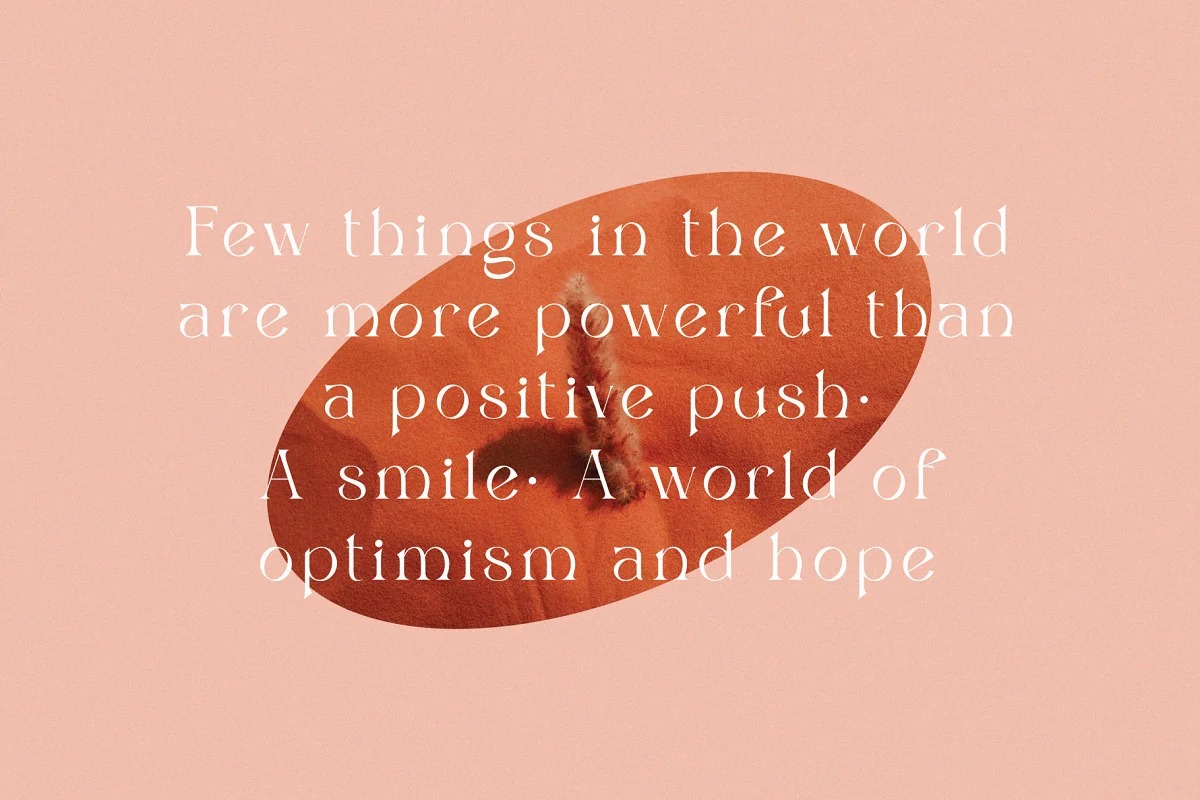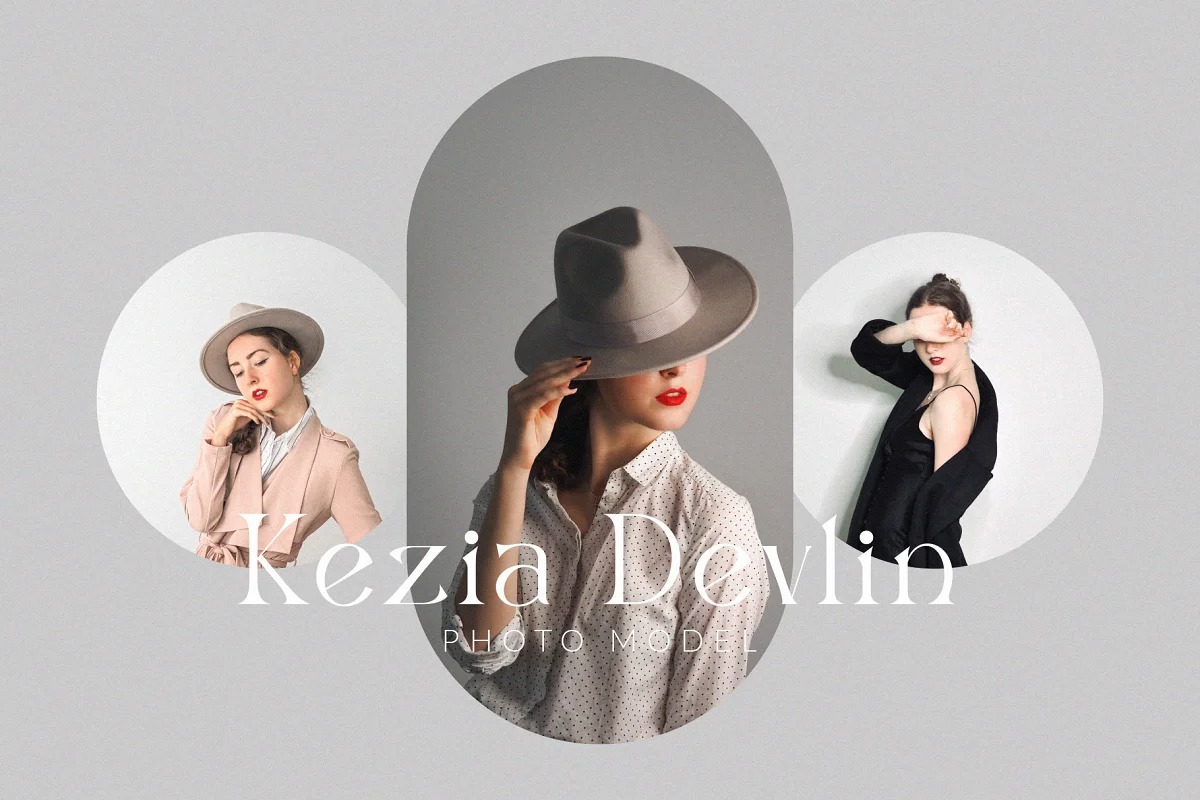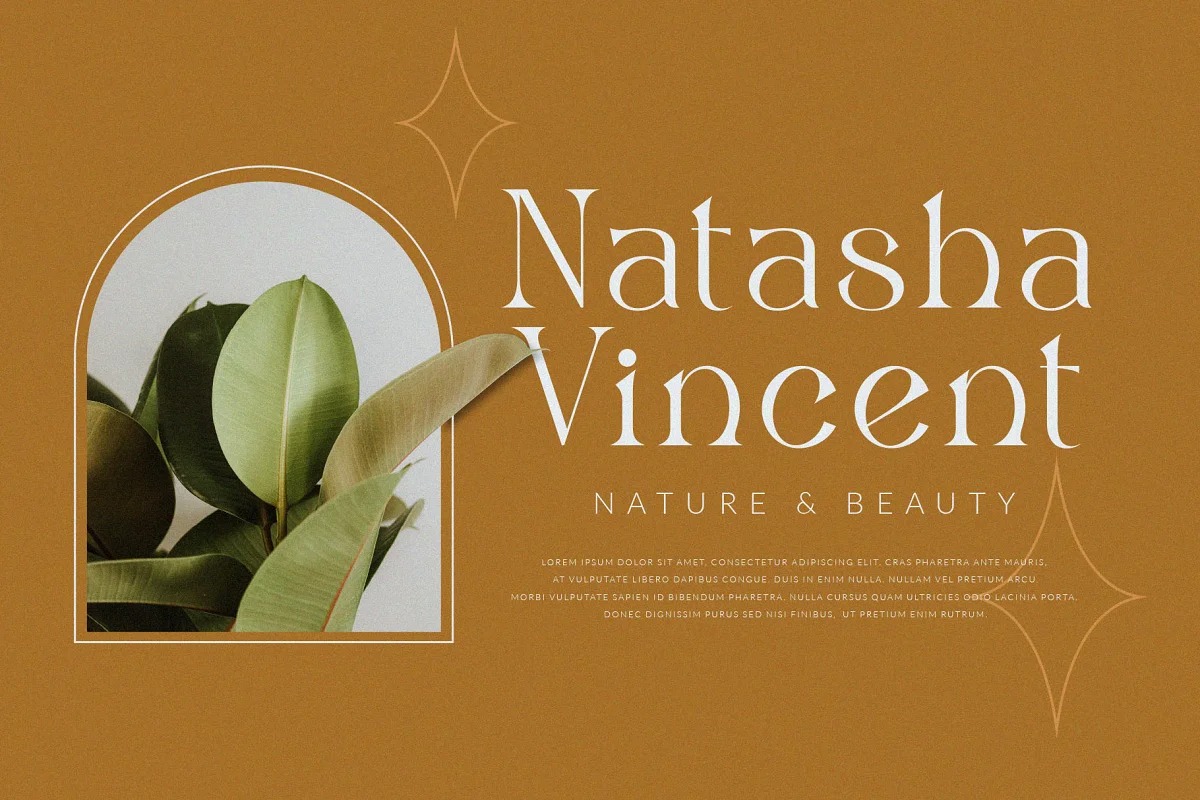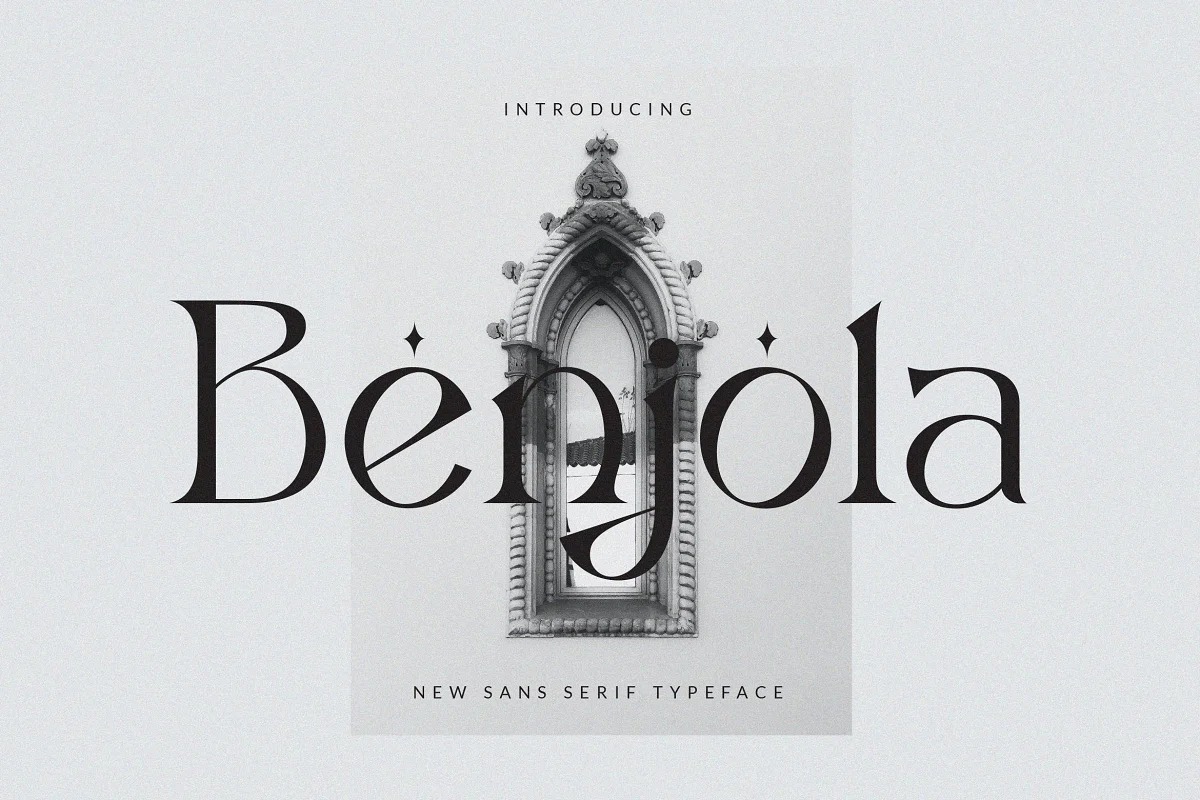
Benjola Font
Benjola Serif Font is a chic & elegant display modern serif with beautiful contrast and have unique ligature for optional. Elegantly crafted and easily be matched to an incredibly large set of projects. Use Benjola to achieve an exquisite, yet subtle look and maximum versatility.